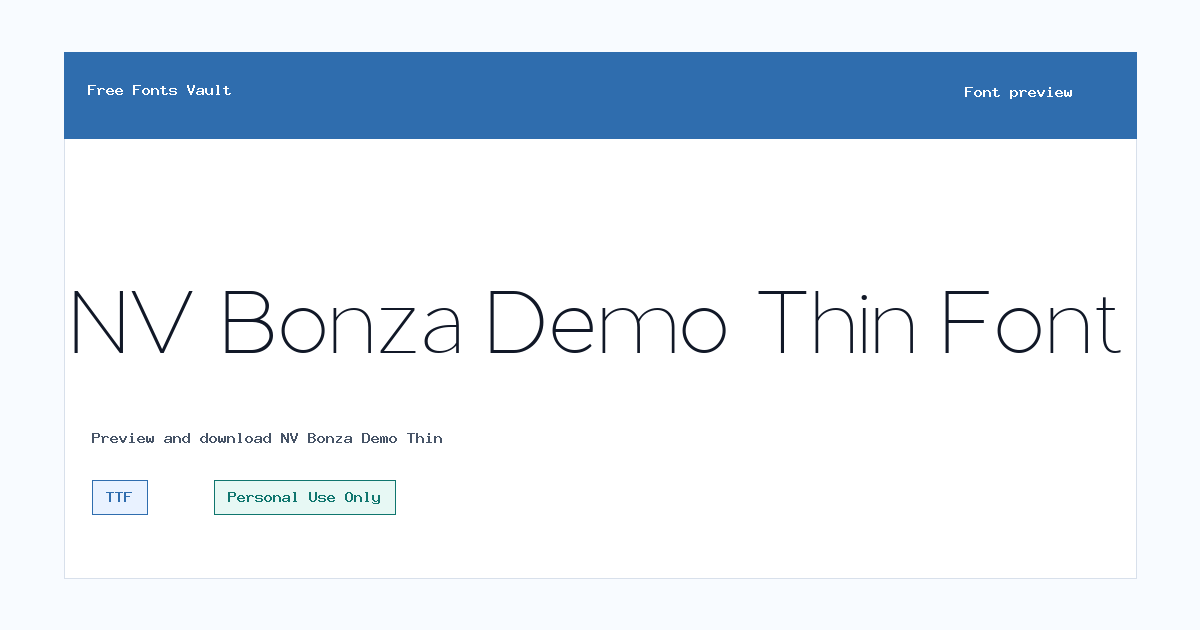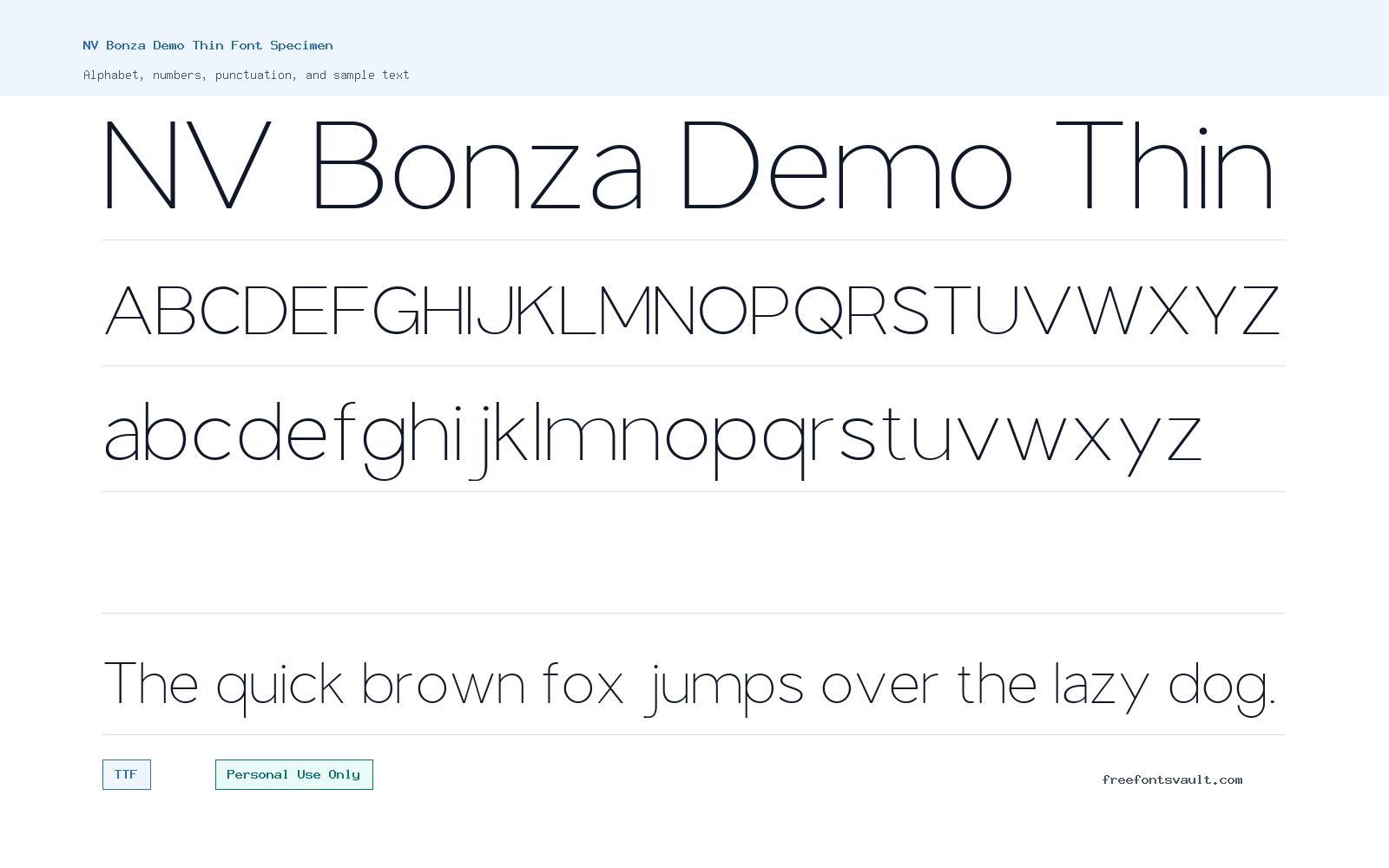
NV Bonza Demo Thin
- Designer Almer Muhammad Hafidz
- Foundry NovaraType
NV Bonza Demo Thin font.
NV Bonza Demo Thin is a light-weight sans serif demo font with a delicate, clean look. It is best treated as a personal-use font for testing layouts, previewing headings, and trying refined display typography before choosing a broader font setup.
About NV Bonza Demo Thin
NV Bonza Demo Thin is the thin style from the NV Bonza Demo family name listed for this font page. The font file is a TrueType font, and its weight is marked as 100, which points to a very light cut. That makes it more suitable for airy titles, elegant short lines, and minimalist design tests than for dense body copy. Thin fonts can look sharp at large sizes, but they often lose clarity when used too small or on low-contrast backgrounds.
Use the preview box to test the words you actually plan to design with. Try names, titles, menu labels, quotes, packaging lines, or short social graphics. Because this is a thin sans serif, check spacing carefully: all-caps text, long words, and small mobile sizes may need extra tracking or a larger font size. For readability, pair it with a stronger regular-weight sans serif or a simple serif for longer paragraphs, while keeping NV Bonza Demo Thin for the part of the design that needs a lighter touch.
- Thin sans serif style with a very light 100 weight
- Large headings, nameplates, short quotes, and clean title treatments
NV Bonza Demo Thin is credited to designer Almer Muhammad Hafidz, with NovaraType listed as the foundry.
What type of font is NV Bonza Demo Thin?
It is listed as a sans serif font, and the included style is a thin 100-weight TrueType font.
What is NV Bonza Demo Thin best used for?
It works best for large, short text such as headings, names, quotes, and layout previews where a light sans serif style is useful.